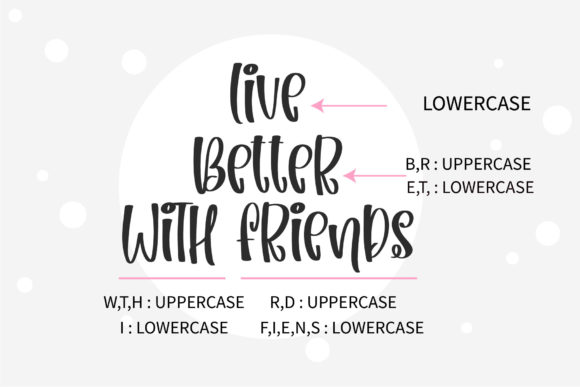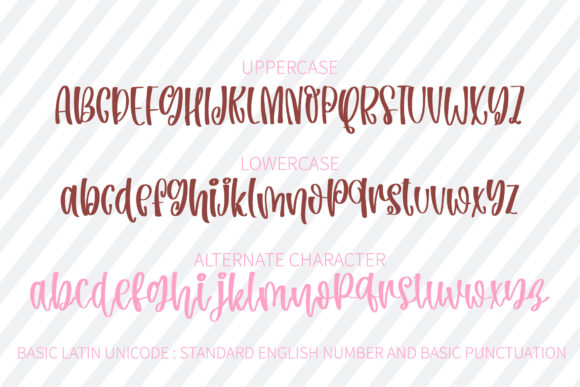
Christmas Reindeer Font
db-ku.com - Script & Handwritten -- Christmas Reindeer is a quirky and relaxed handwritten font. Whatever the topic, this font will be a wonderful asset to your font library, as it has the potential to enhance any creation.